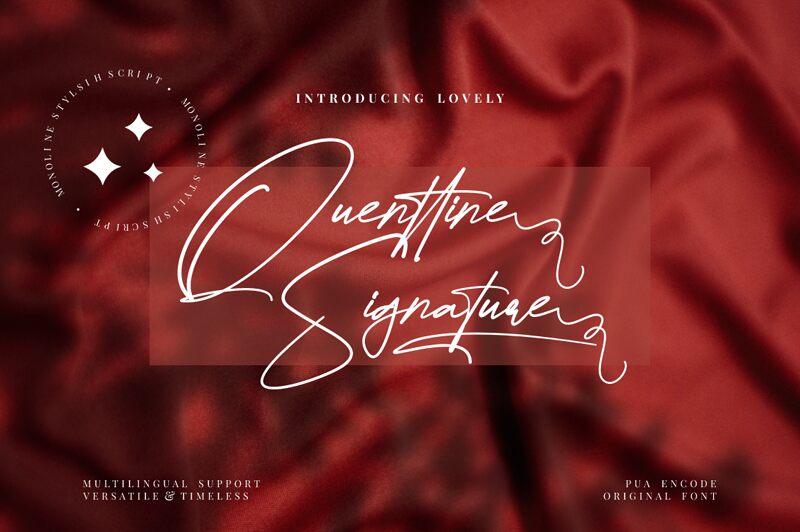
Quenttine Signature, a captivating handwritten font crafted by FinTypeStudio, exudes an elegant and expressive charm. This light-weighted design effortlessly captures the essence of a signature, with its flowing strokes and natural fluidity. The script-like aesthetic evokes a sense of personal touch, making it an appealing choice for branding, invitations, and other design projects that require a touch of refined sophistication.
Quenttine Signature's versatility shines through its ability to seamlessly adapt to a variety of applications. Its distinctive character lends itself well to projects that demand a personalized, artisanal feel, such as wedding stationery, greeting cards, and product packaging. Additionally, this font can elevate the visual identity of small businesses, adding a touch of elegance and individuality to their branding efforts.
Quenttine Signature